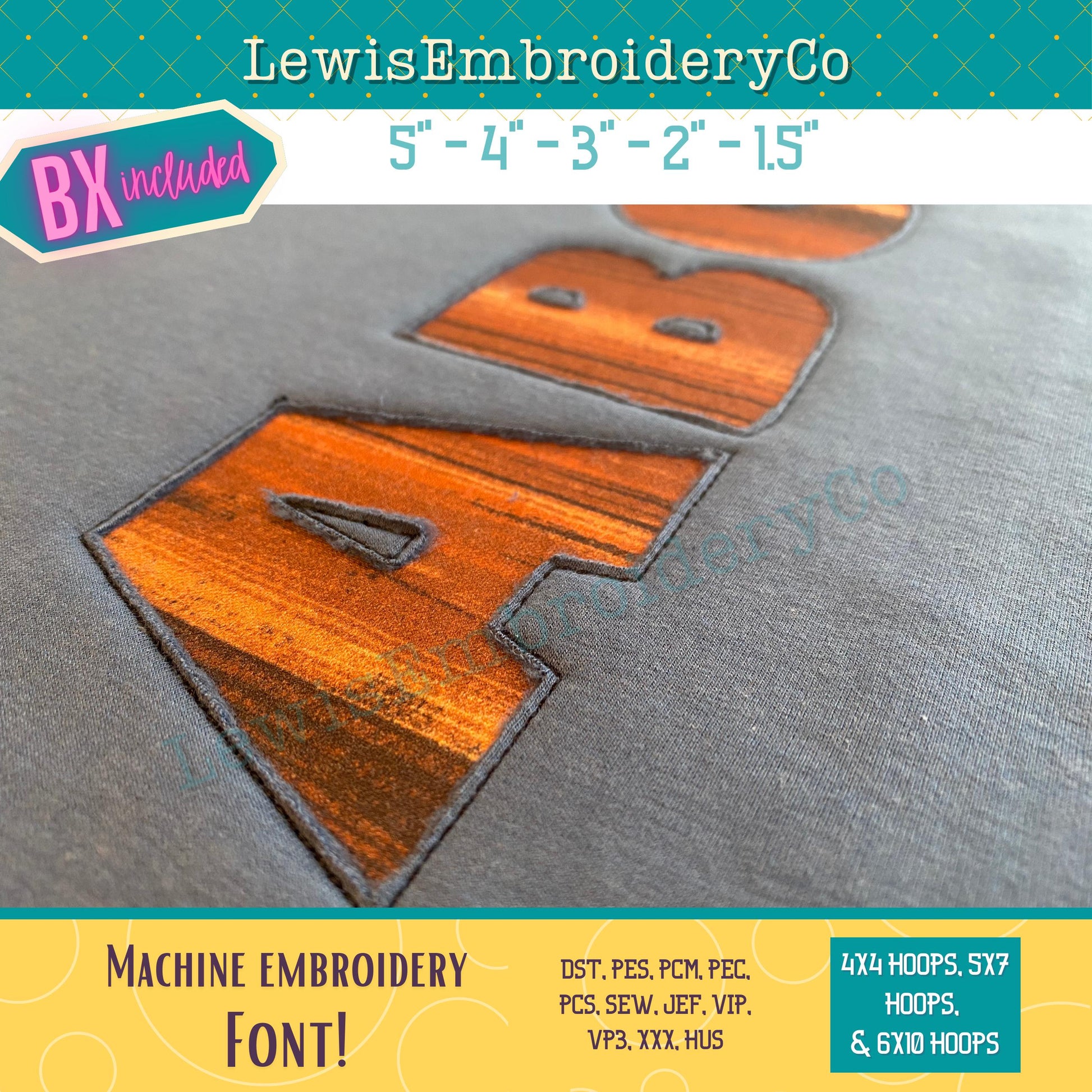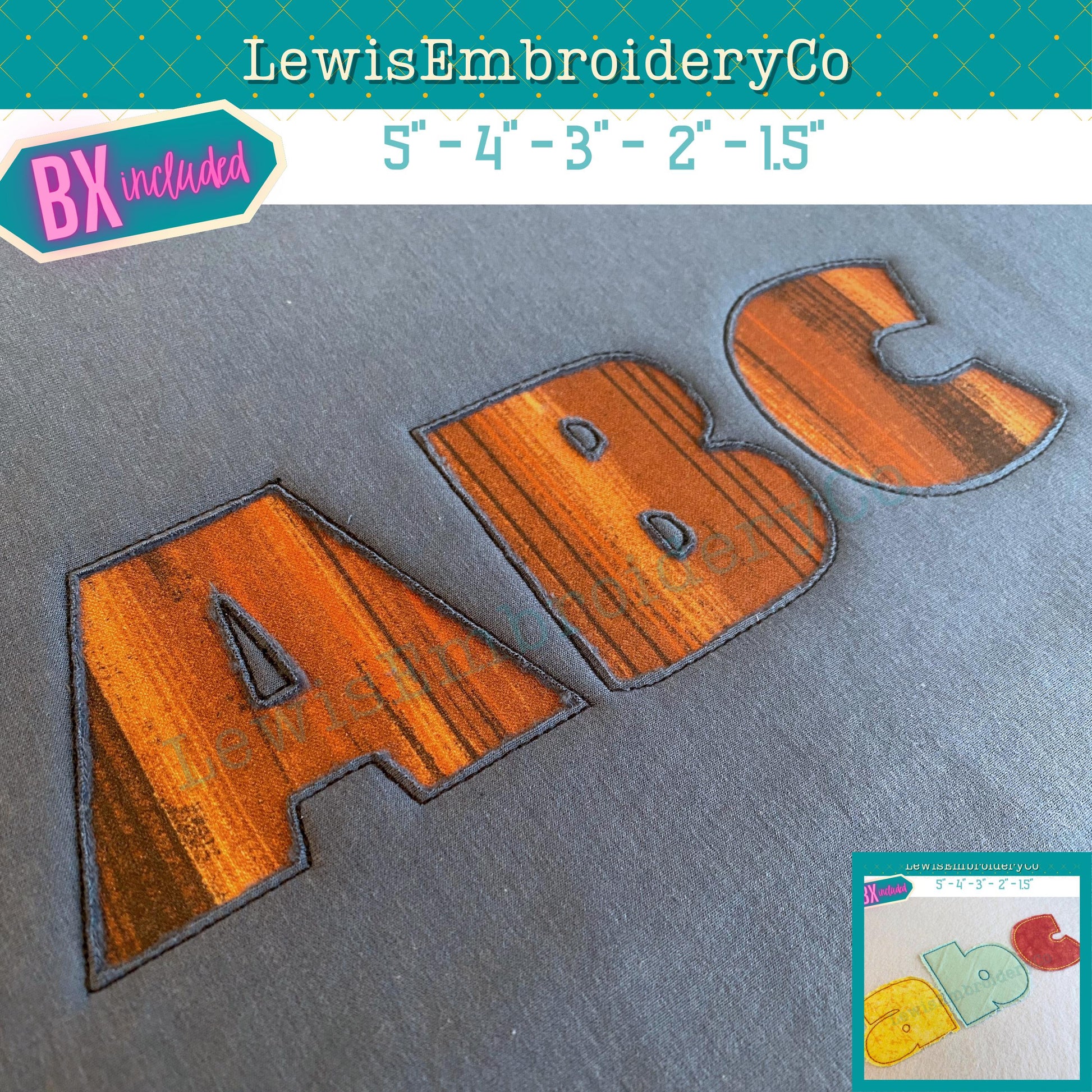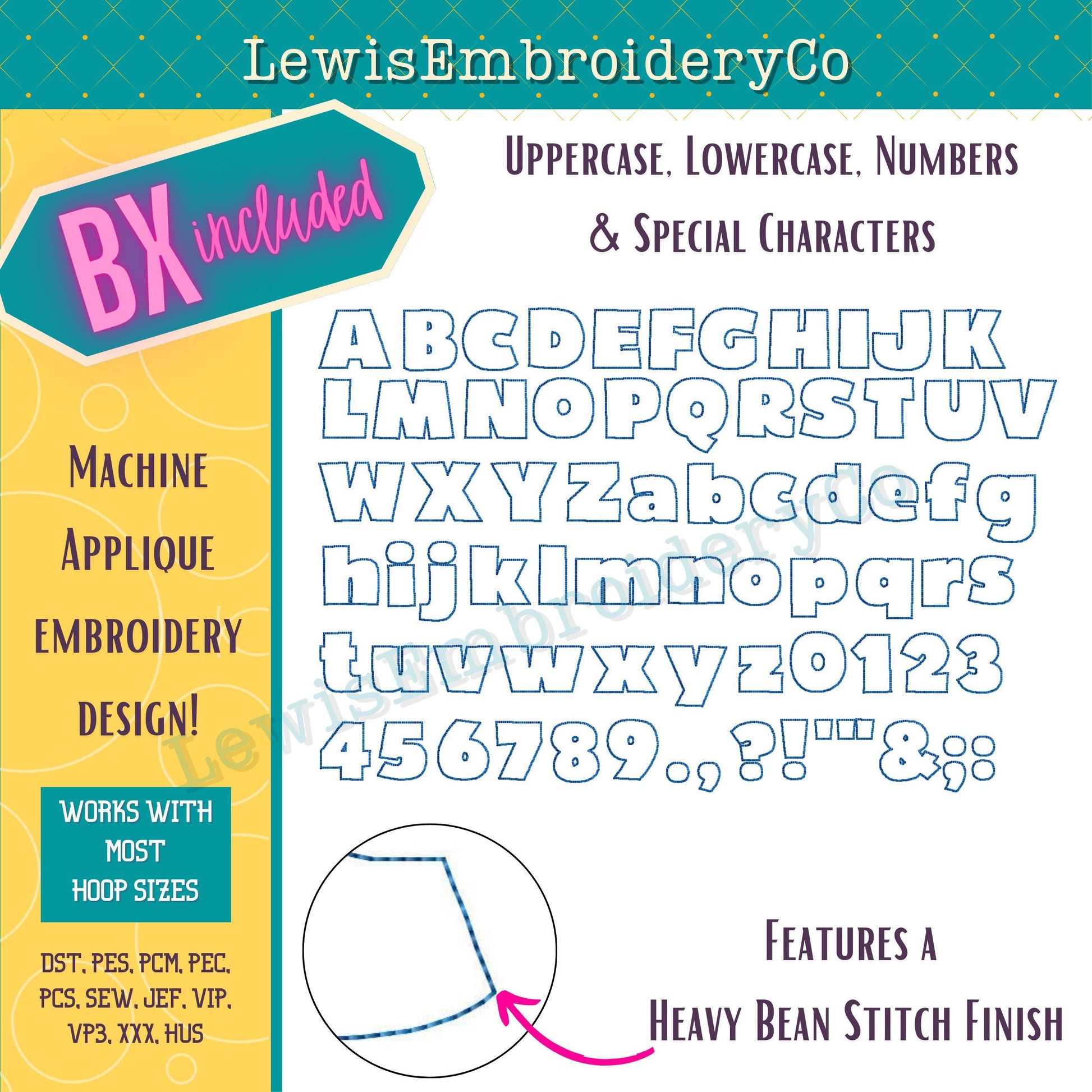
Reverse Applique, Block, Machine Embroidery Font - With BX - (PDF Tutorial Included)
Reverse Applique Embroidery Font - Bold Block Applique Font - Raw Edge Applique Alphabet - Bean Applique Embroidery Font - Block Font
This fun font will add a nice touch to any of your projects!